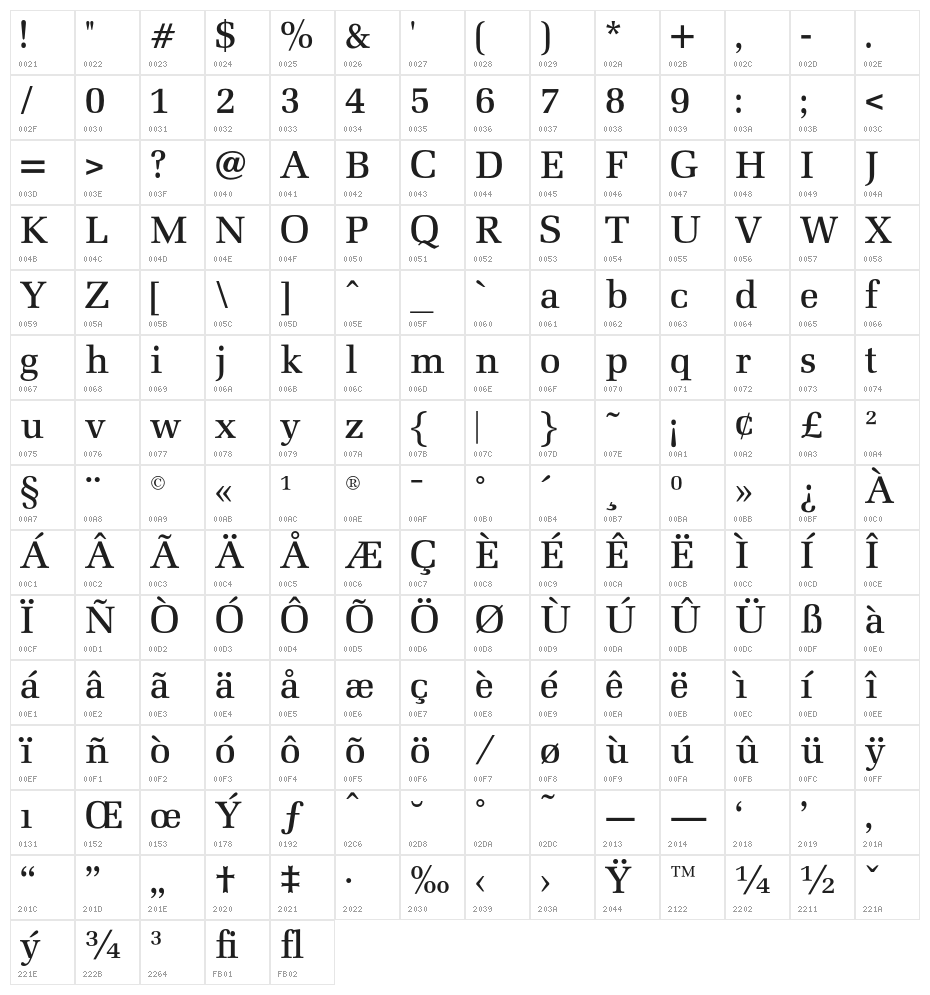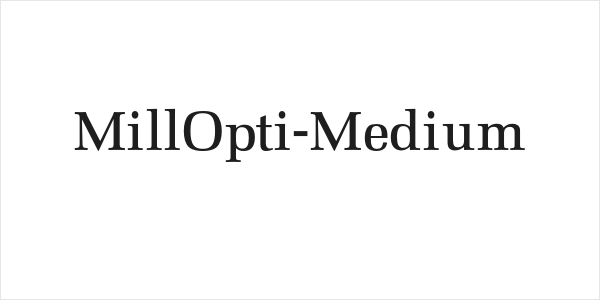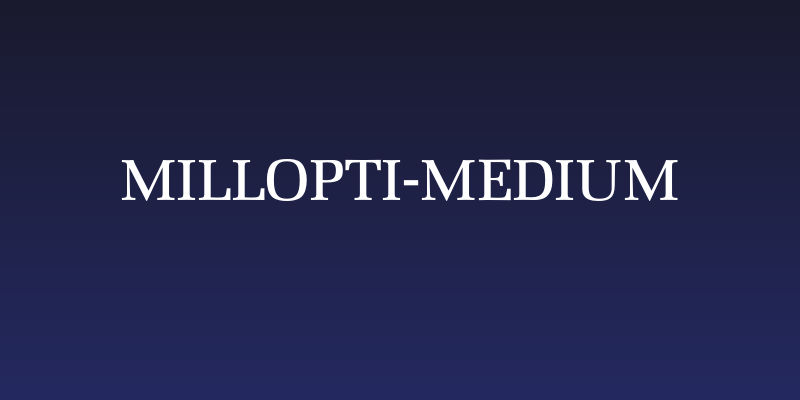
MillOpti-Medium Font
MillOpti-Medium Description
This font features a classic serif design with a modern twist. The characters exhibit a balanced proportion, providing a sense of elegance and readability. The serifs are pronounced yet refined, adding a touch of sophistication. The uppercase letters are bold and commanding, while the lowercase letters maintain a smooth and consistent flow. The numerals are clear and distinct, making them suitable for both text and display purposes. Special characters are well-integrated, maintaining the overall aesthetic of the font. This font is versatile, suitable for a range of applications from editorial design to branding.
| Proposed Projects | Ideal for editorial design, branding, book covers, and professional presentations. |